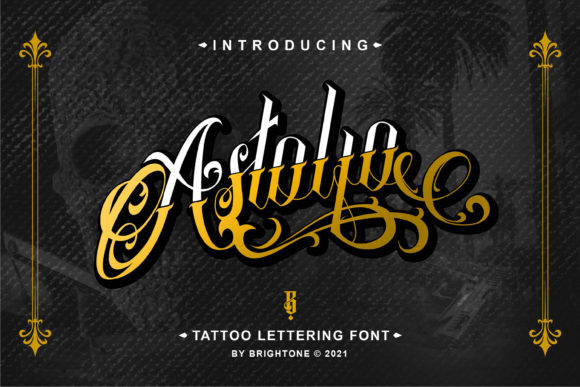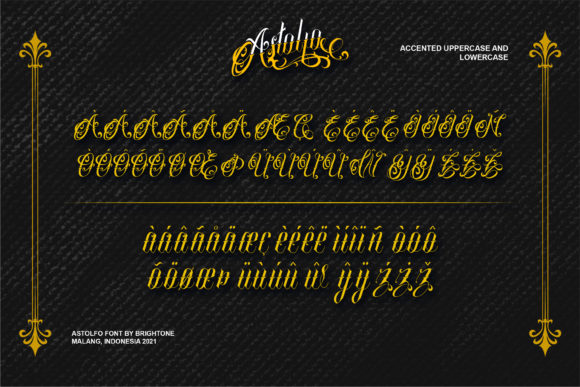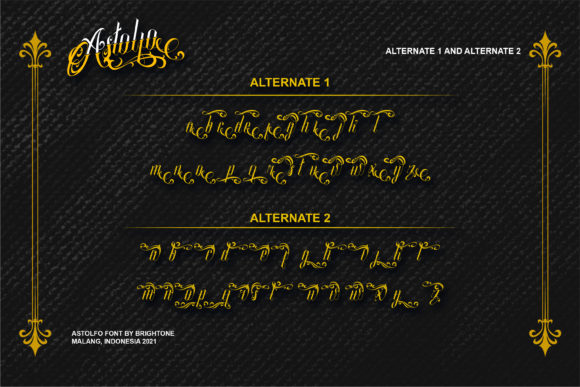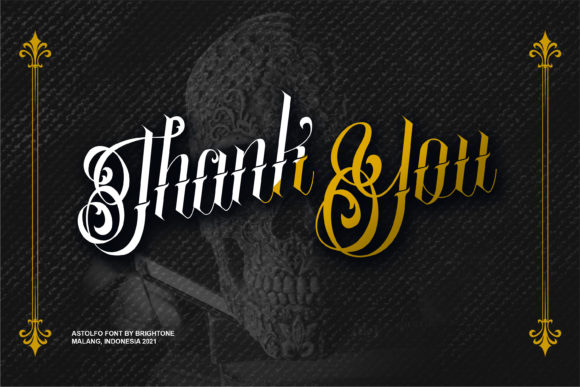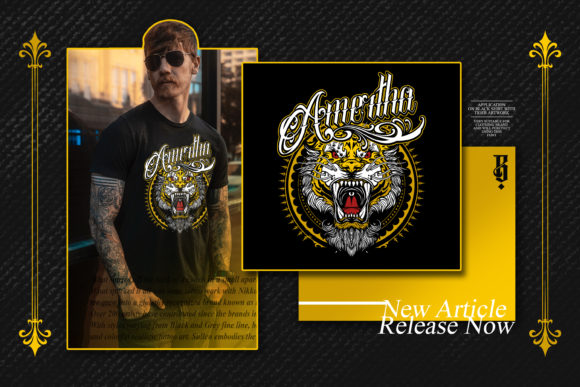
About Astolfo Font
Astolfo is a ravishing script font. This font is neatly crafted and highly detailed. Whatever the topic, this font will be a wonderful asset to your font library, as it has the potential to enhance any creation.